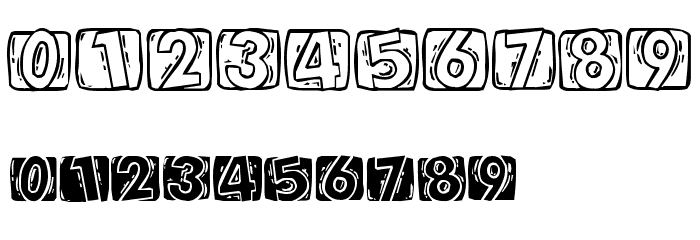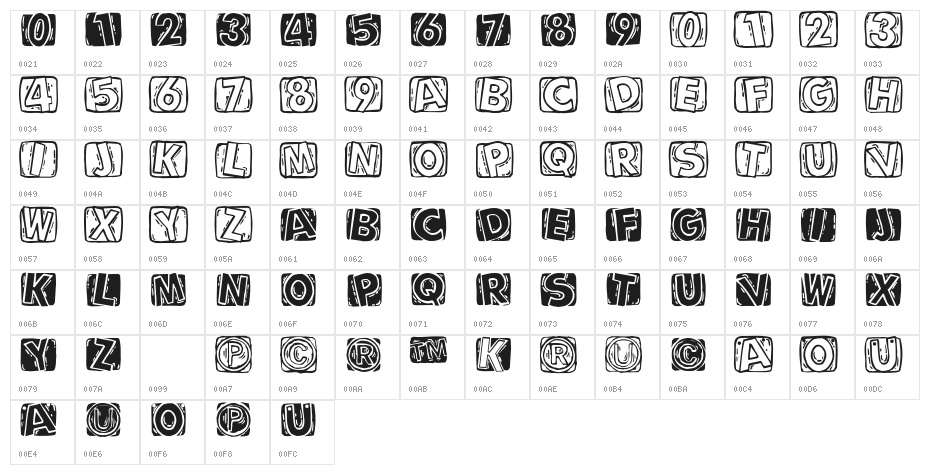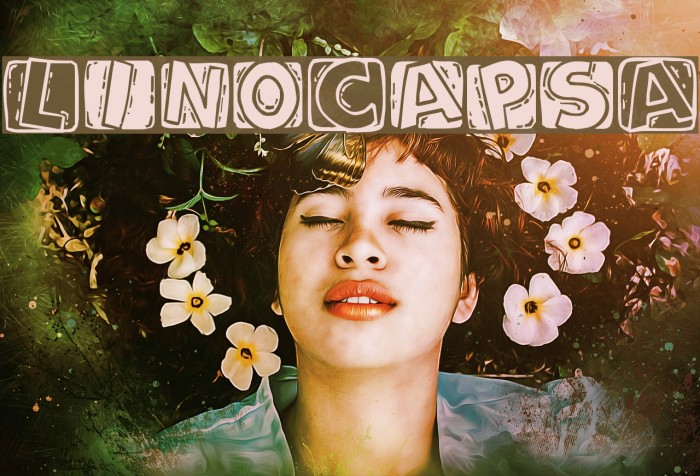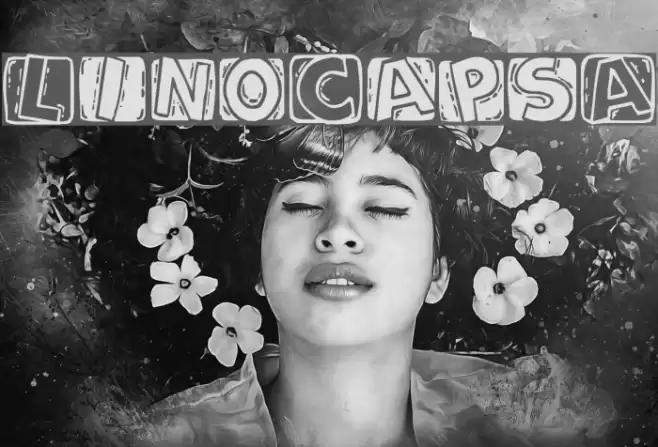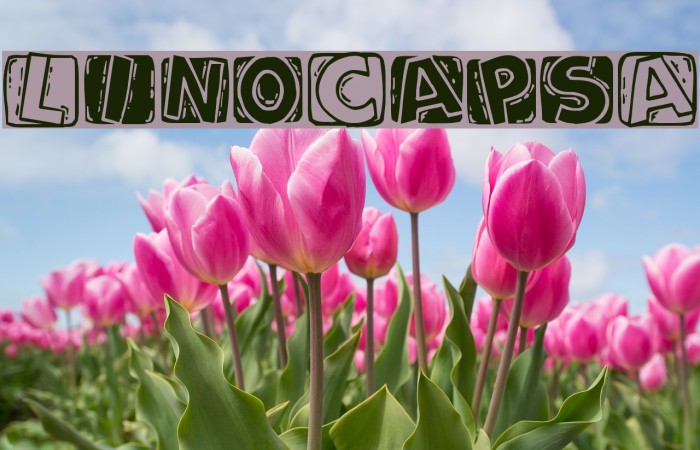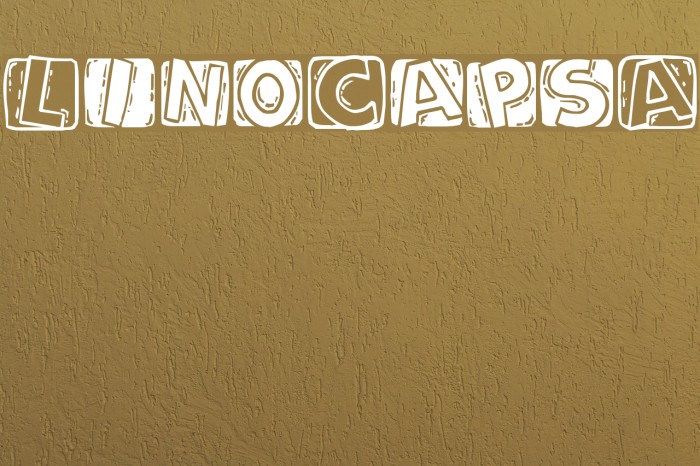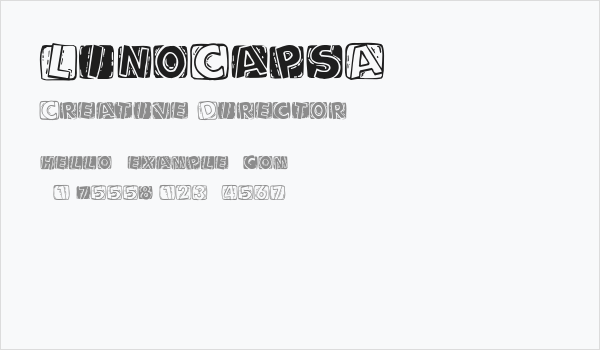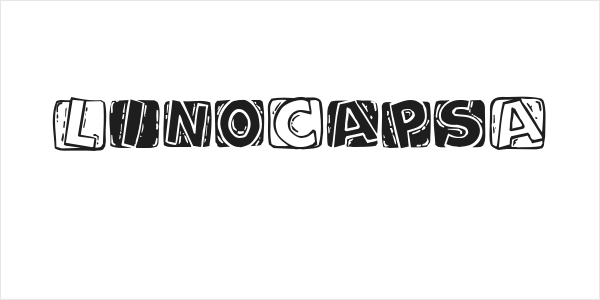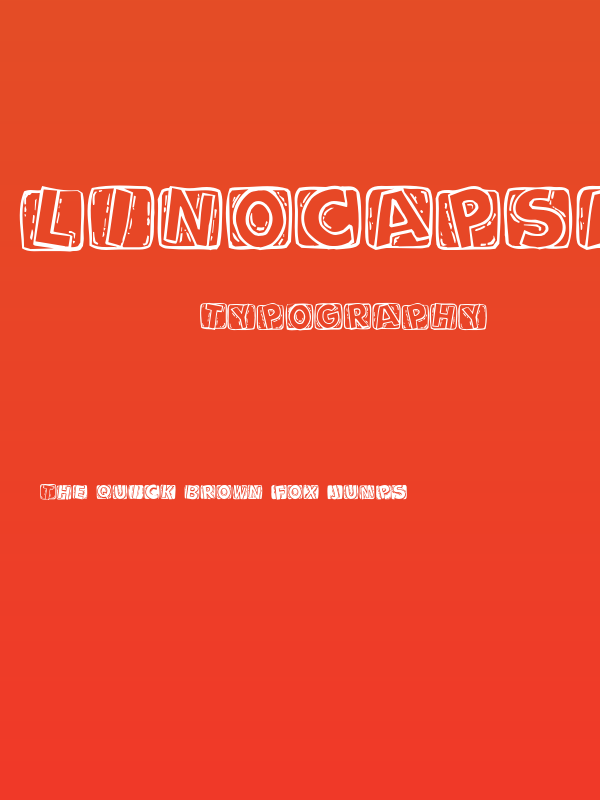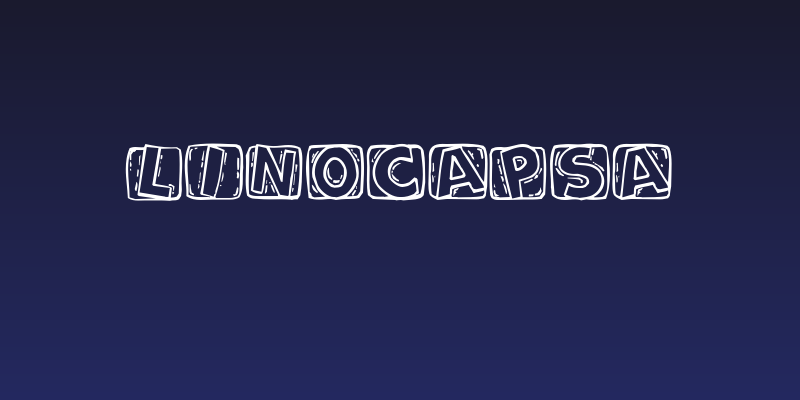
LinoCapsA Font
LinoCapsA Description
This font features a bold, playful design with a hand-drawn aesthetic. Each character is enclosed within a square-like shape, giving it a blocky appearance. The letters and numbers have a distressed texture, adding a vintage and artistic feel. The style is reminiscent of linocut prints, with uneven edges and a slightly rough finish. This font is highly decorative and stands out due to its unique and creative design, making it ideal for eye-catching projects.
| Overall Style | Vintage, Artistic |
| Proposed Projects | Ideal for posters, album covers, children's books, and creative branding projects. |